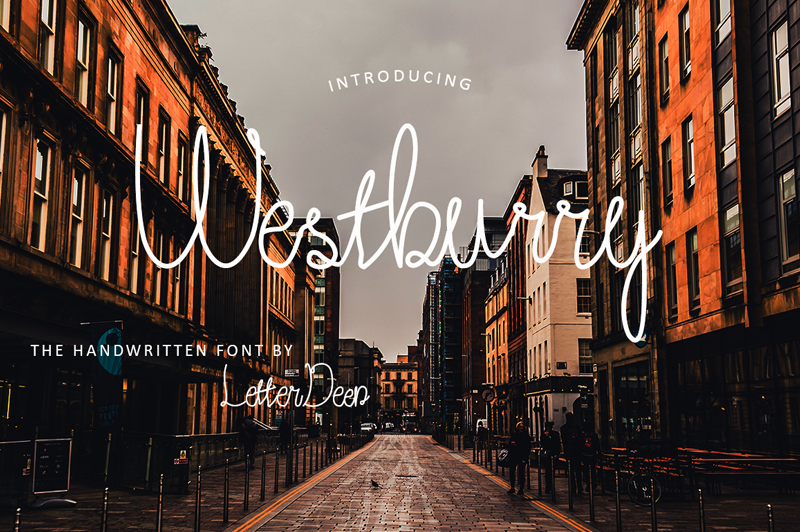
Preview and download Westburry Font. Created by Muhammad Wahyudin in Script Handwritten styles with Free for personal use license.
Westburry Font is modern handwritten, with sweet touches and beautiful curves on each letter. Westburry Font is perfect for fashion magazines, product watermarks, branding projects, logo, wedding designs, social media posts, advertisements, product packaging, product designs, label, photography, watermark, invitation, stationery and any projects that need handwriting taste. NOTE: This demo font is for PERSONAL USE ONLY! But any donation are very appreciated. Paypal account for donation : https://www.paypal.me/wahyudin1886 Link to purchase commercial license : https://thehungryjpeg.com/product/3614229-westburry-a-handwritten-font If you need a question, please contact us at wahyudin1886@gamil.com Thank you. |